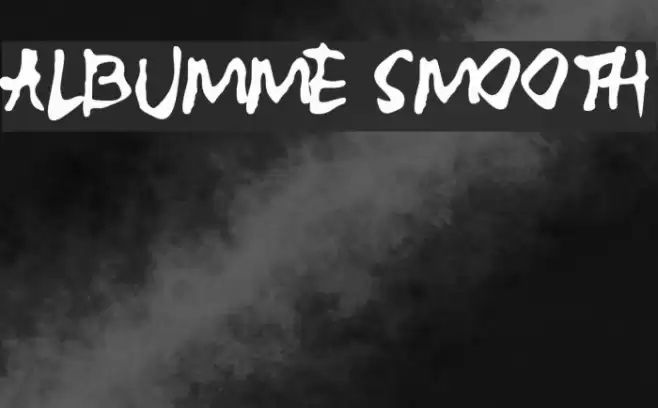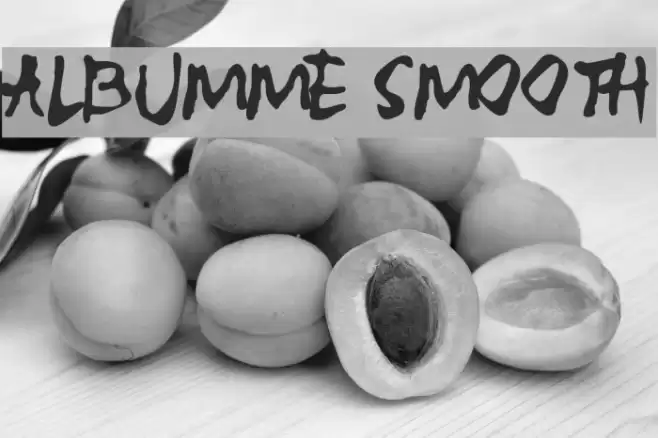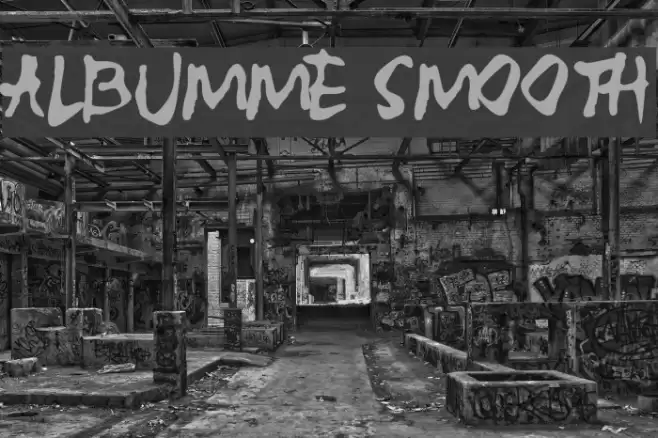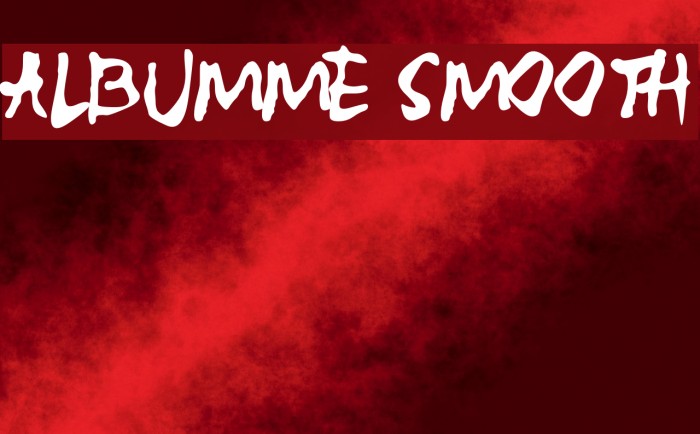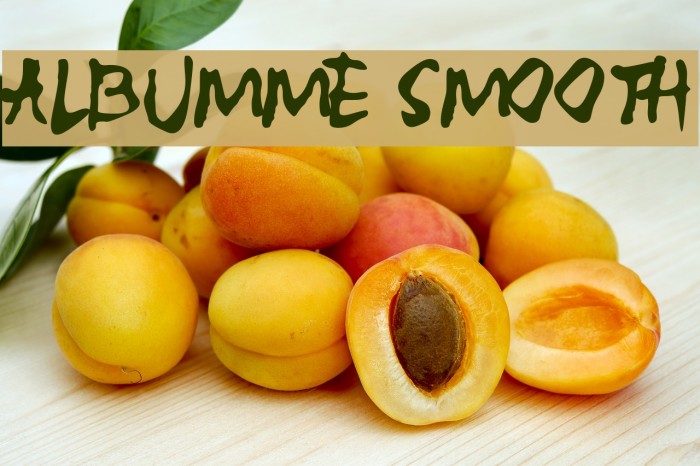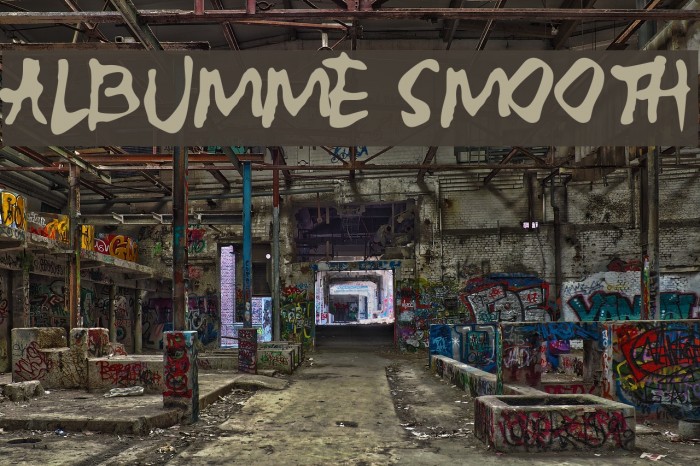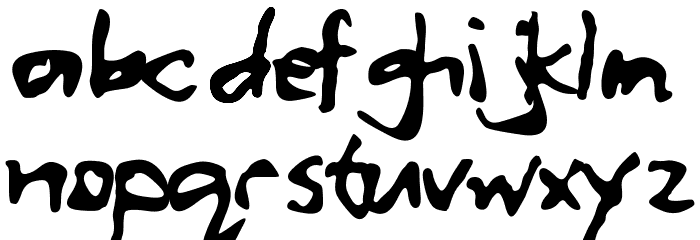
ALBUMME SMOOTH Font
ALBUMME SMOOTH Description
This font exhibits a bold, expressive style with a hand-drawn appearance. The characters are irregular and organic, giving a sense of movement and energy. The strokes are thick and vary in width, contributing to a dynamic and artistic look. The uppercase and lowercase letters maintain a consistent style, with unique and playful shapes. The numbers and special characters follow the same design principles, ensuring a cohesive visual identity. This font is ideal for projects that require a personal touch or a creative flair, such as artistic posters, album covers, or branding materials.
A bold, hand-drawn font with expressive, irregular strokes and a dynamic style from Decorative fonts.
- Proposed Projects: Ideal for artistic posters, album covers, branding materials, and creative designs.